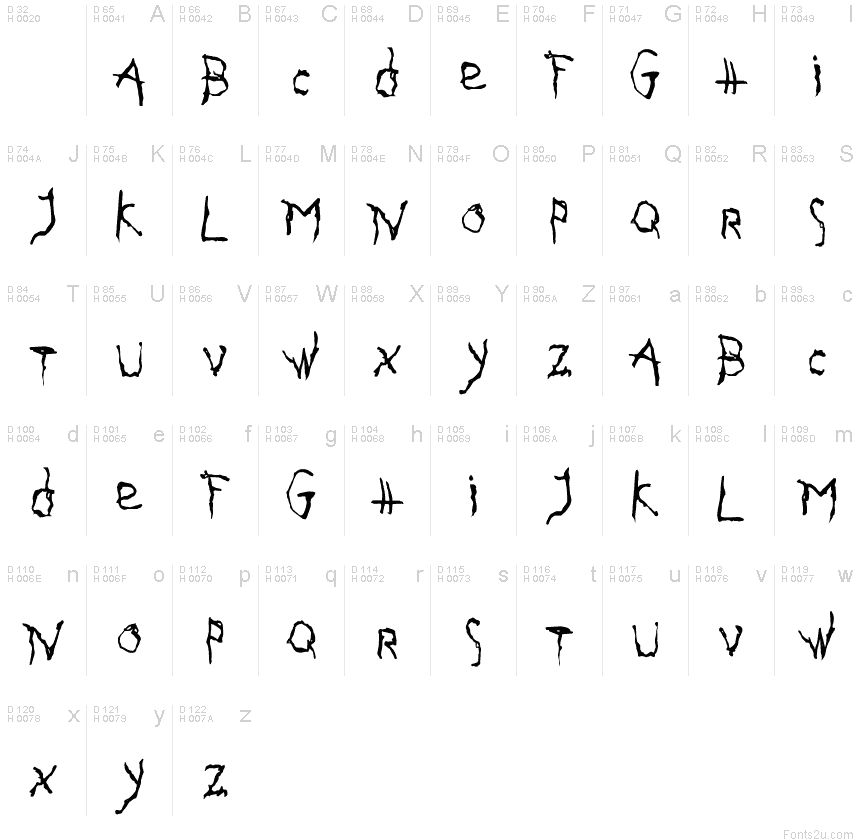
Gothika Issue A
Gothika Issue A font by Aeryn is a free trash horror display typeface that looks like it was scratched onto a wall with something sharp and impatient. The letters wobble and drip with inky weight, swinging from ragged blobs to knife-thin strokes, giving every word a disturbed, hand-scrawled tension. There’s an uneven rhythm to the Gothika family here that makes even short phrases feel like a warning.
Using Gothika Issue A, titles instantly feel cinematic and uneasy, perfect for horror movie posters, thriller book covers, haunted house branding, escape room graphics, Halloween flyers, and dark album artwork. This free font thrives at large sizes where its smeared edges and crooked shapes can breathe; pair it with a plain, modern sans serif for credits or body copy so the chaos stays where it’s most impactful.